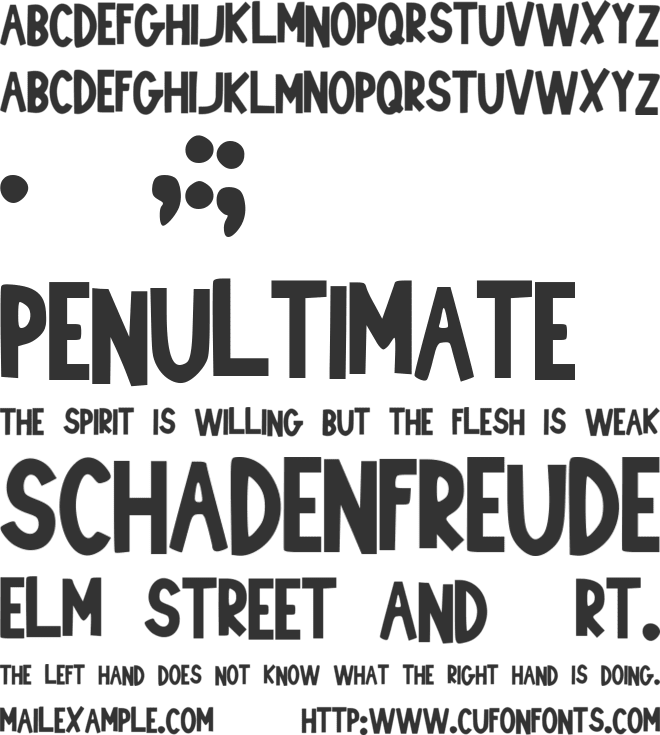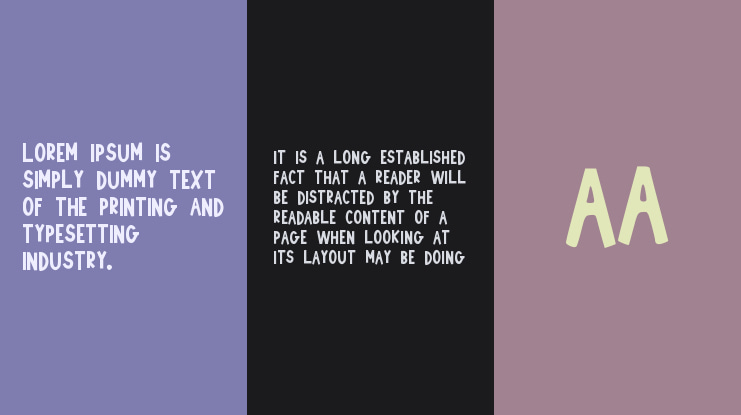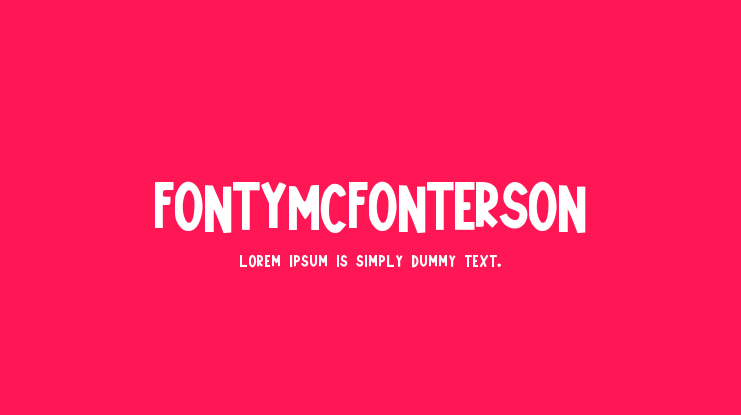
Fonty_McFonterson Font
My second font on this site. It was not originally intended to be crooked, but after it was, I liked the way it looked, so I rolled with it.